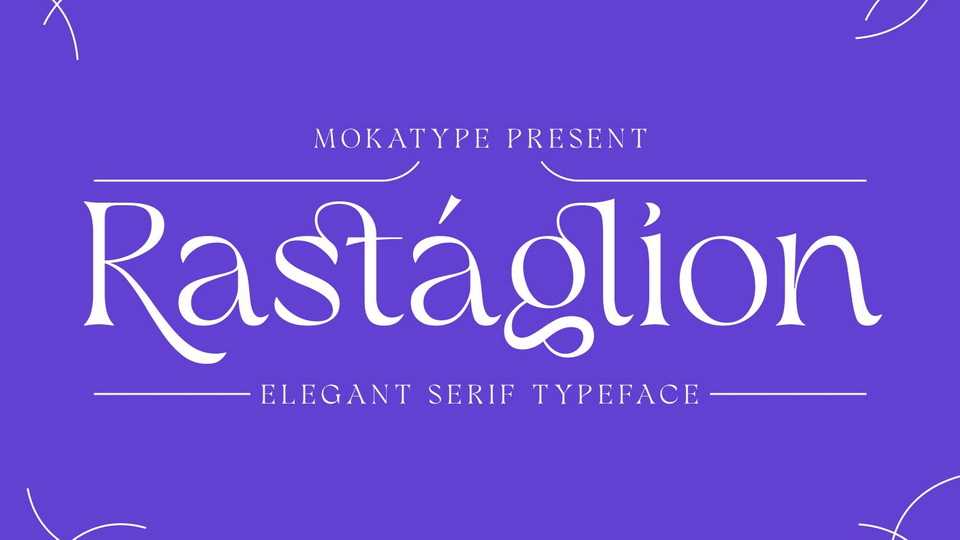
Download Rastaglion font, an old-modern serif typeface with single weight only, it has been inspired by the modern classification of serif typeface in early 20th century.